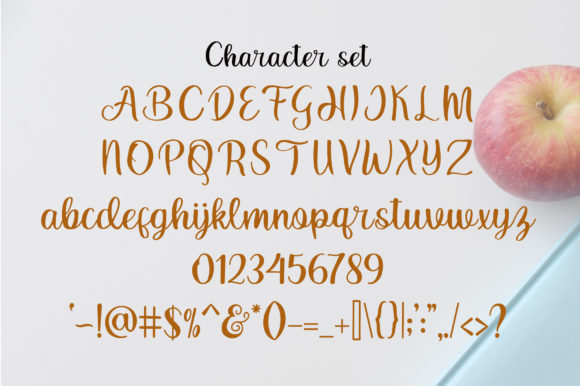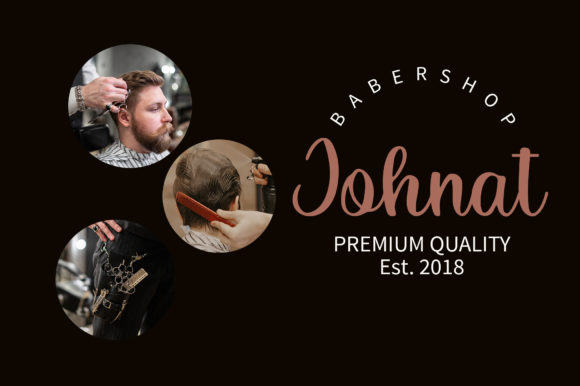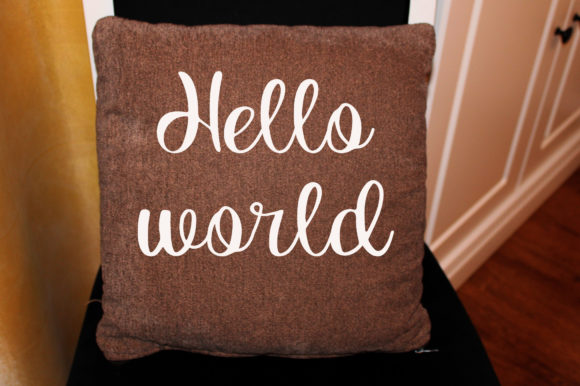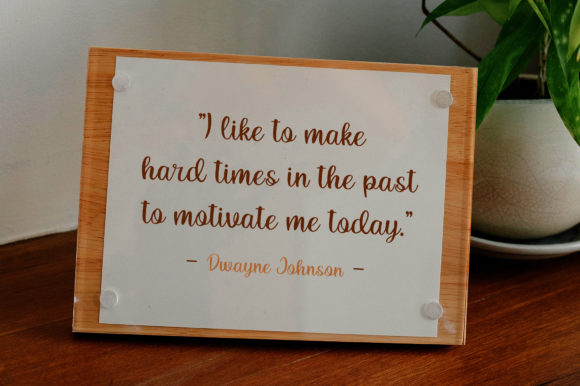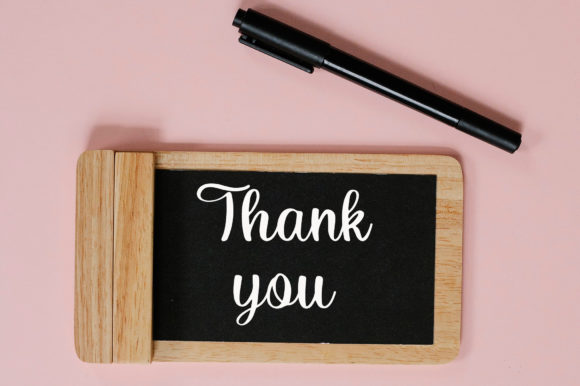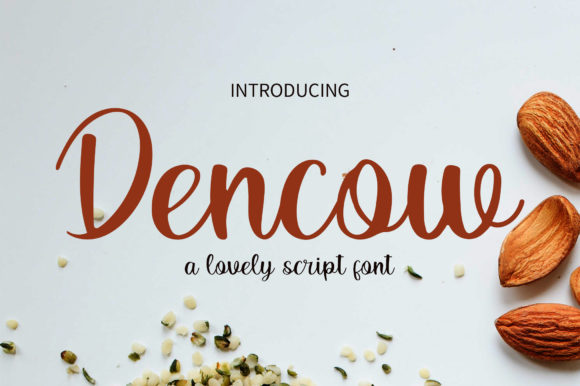
Dencow Font: A Charming Script Font to Elevate Your Creative Projects
Are you tired of using the same old fonts for your creative projects? Look no further than the Dencow Font, a lovely script font that is sure to add a touch of whimsy and charm to any design. With its playful characters that seem to dance along the baseline, Dencow is the perfect addition to your font collection.
What is Dencow Font?
Dencow Font is a script font that features charming, playful characters that are sure to capture the attention of your audience. Its unique and elegant design makes it perfect for a variety of creative projects, from handmade crafts to digital designs. Whether you’re a designer, crafter, or DIY enthusiast, Dencow Font is a great choice for adding a personal touch to your work.
Key Features of Dencow Font
• Playful Characters: Dencow Font features playful characters that seem to dance along the baseline, adding a touch of whimsy to your designs.
• Elegant Design: The font has an elegant design that is perfect for a variety of creative projects, from formal to informal.
• Easy to Read: Despite its playful nature, Dencow Font is easy to read, making it perfect for use in body text or headings.
• Versatile: Dencow Font can be used for a variety of creative projects, including handmade crafts, digital designs, and more.
Uses for Dencow Font
Dencow Font is a versatile font that can be used for a variety of creative projects. Here are a few ideas to get you started:
• Handmade Crafts: Use Dencow Font to add a personal touch to your handmade crafts, such as scrapbooking, card making, and more.
• Digital Designs: Add Dencow Font to your digital designs, such as social media graphics, blog posts, and more.
• Sign Making: Use Dencow Font to create eye-catching signs for your business or personal projects.
• Party Decorations: Use Dencow Font to create custom party decorations, such as banners, invitations, and more.
Tips for Using Dencow Font
Here are a few tips for using Dencow Font in your creative projects:
• Use it as a Headline Font: Dencow Font is perfect for use as a headline font, adding a touch of elegance and whimsy to your designs.
• Pair it with Other Fonts: Experiment with pairing Dencow Font with other fonts to create a unique and eye-catching design.
• Use it in Combination with Images: Use Dencow Font in combination with images to add a personal touch to your designs.
In conclusion, Dencow Font is a lovely script font that is sure to add a touch of charm and whimsy to your creative projects. With its playful characters and elegant design, it’s perfect for a variety of uses, from handmade crafts to digital designs. So why not give it a try and see how it can elevate your designs?
• What type of font is Dencow Font? Dencow Font is a script font.